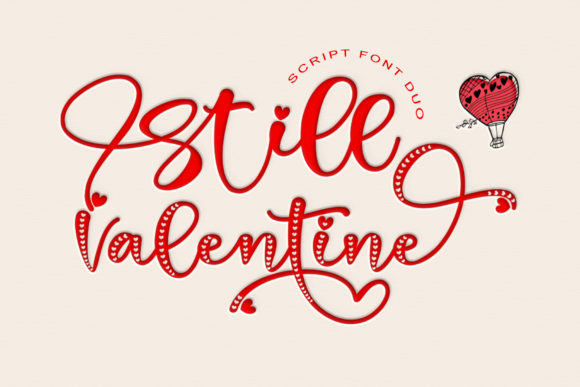
Unveil the elegance and charm of Still Valentine, a captivating script font family that will transform your designs into works of art. Immerse yourself in the world of romance and creativity with this exquisite typeface, meticulously crafted to evoke emotions and leave a lasting impression.
Journey through the beauty of Still Valentine's meticulously designed characters, each one a testament to the power of typography. The font's enchanting appearance stems from its distinct and well-rounded letters, dancing playfully along the baseline, creating a visual symphony that captivates the eyes.
Step into a realm of endless possibilities with Still Valentine's incredibly versatile style. Its adaptability knows no bounds, seamlessly flowing from wedding invitations to heartfelt love letters, from whimsical posters to enchanting branding designs. Embrace the font's versatility and elevate your creations to new heights.
With Still Valentine, the boundaries of creativity dissolve, and your imagination takes center stage. Craft spectacular designs that mirror the depth of your emotions, expressing love, joy, and heartfelt sentiments with every stroke. This font is your passport to a world where words come alive, transforming ordinary designs into captivating masterpieces.
Unleash the full potential of Still Valentine's PUA encoding, granting you effortless access to a treasure trove of glyphs and swashes. With a few simple clicks, unlock a universe of embellishments, flourishes, and alternate characters, allowing you to add an extra layer of sophistication and personalization to your designs.
Still Valentine is more than just a font; it's an invitation to embark on a creative journey, where your designs blossom into expressions of art. Its romantic and sweet calligraphy typeface will leave an indelible mark on your audience, evoking emotions and igniting hearts.
So, succumb to the allure of Still Valentine, let your creativity flourish, and elevate your designs to new heights of beauty and elegance. Embrace the power of typography and craft designs that speak to the soul, leaving an unforgettable impression on all who encounter them.